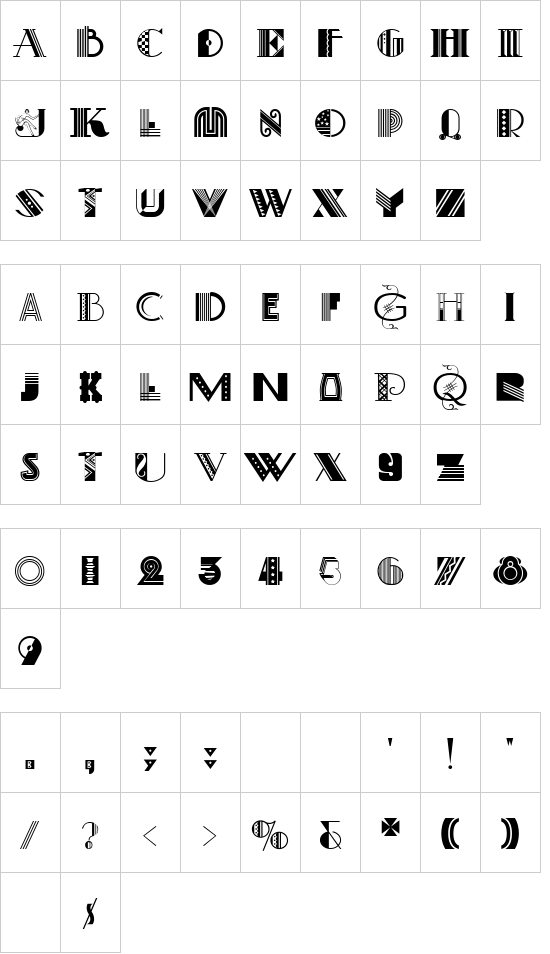
Art-Decoretta is a retro decorative face with elegant Art Deco geometry and refined vintage flair. The letters are slim and stylized, built from clean geometric lines that recall the glamour of twenties poster art. Its mood is luxurious and nostalgic, full of jazz-age polish.
It fits 1920s-themed branding, luxury posters, event invitations, and graphics that want a glamorous, jazz-age character. Art-Decoretta is free to download as a TrueType file, and you can preview your own text to see how the deco letters read across a title before using them in a layout.